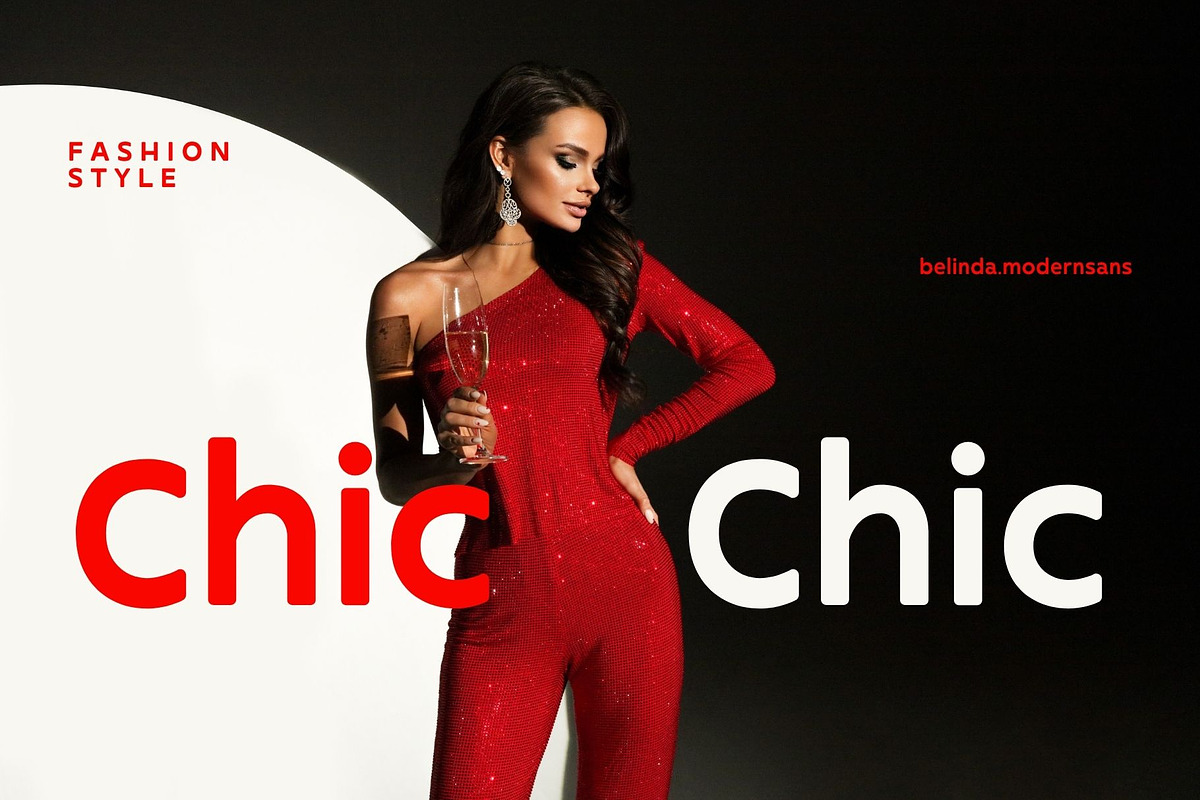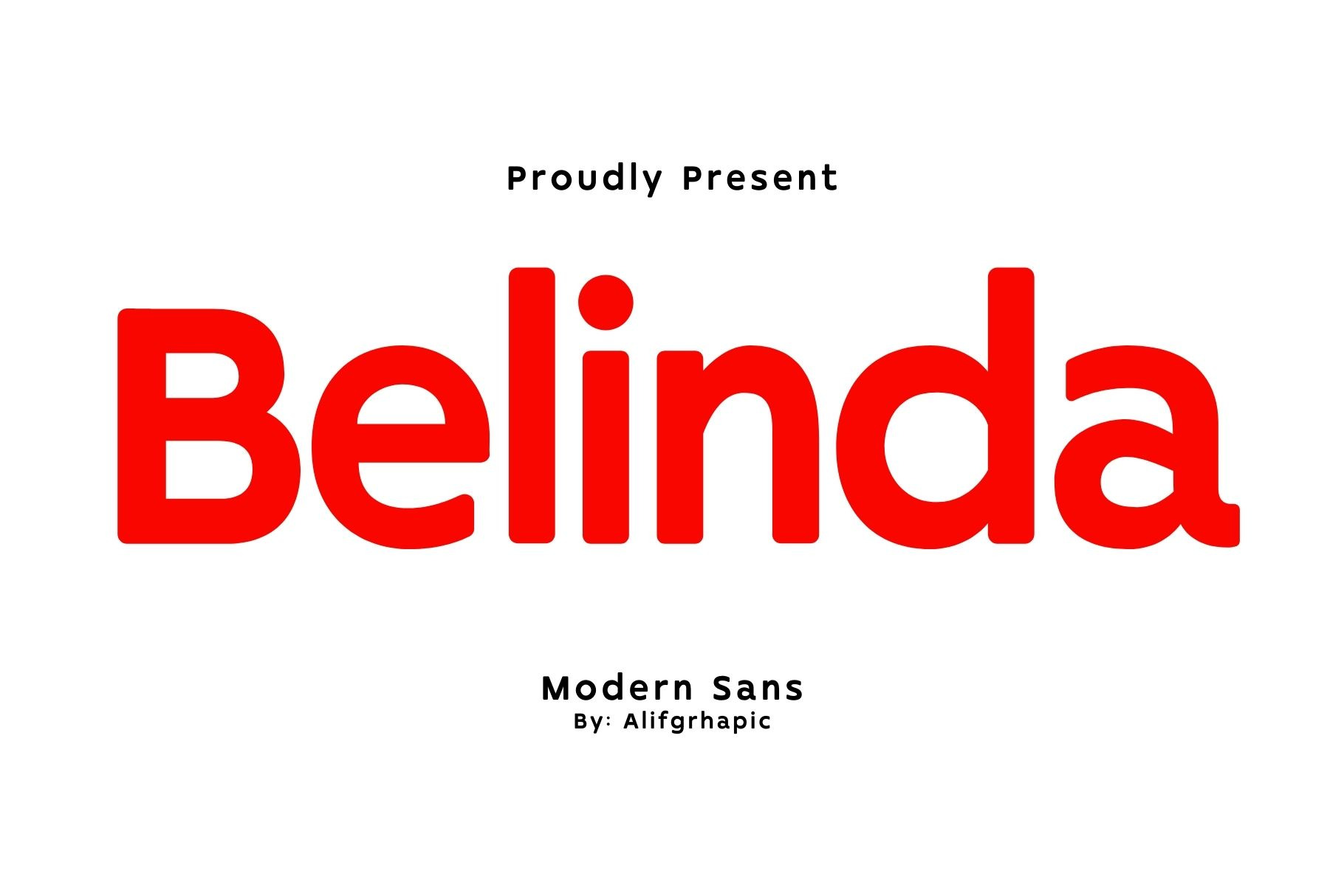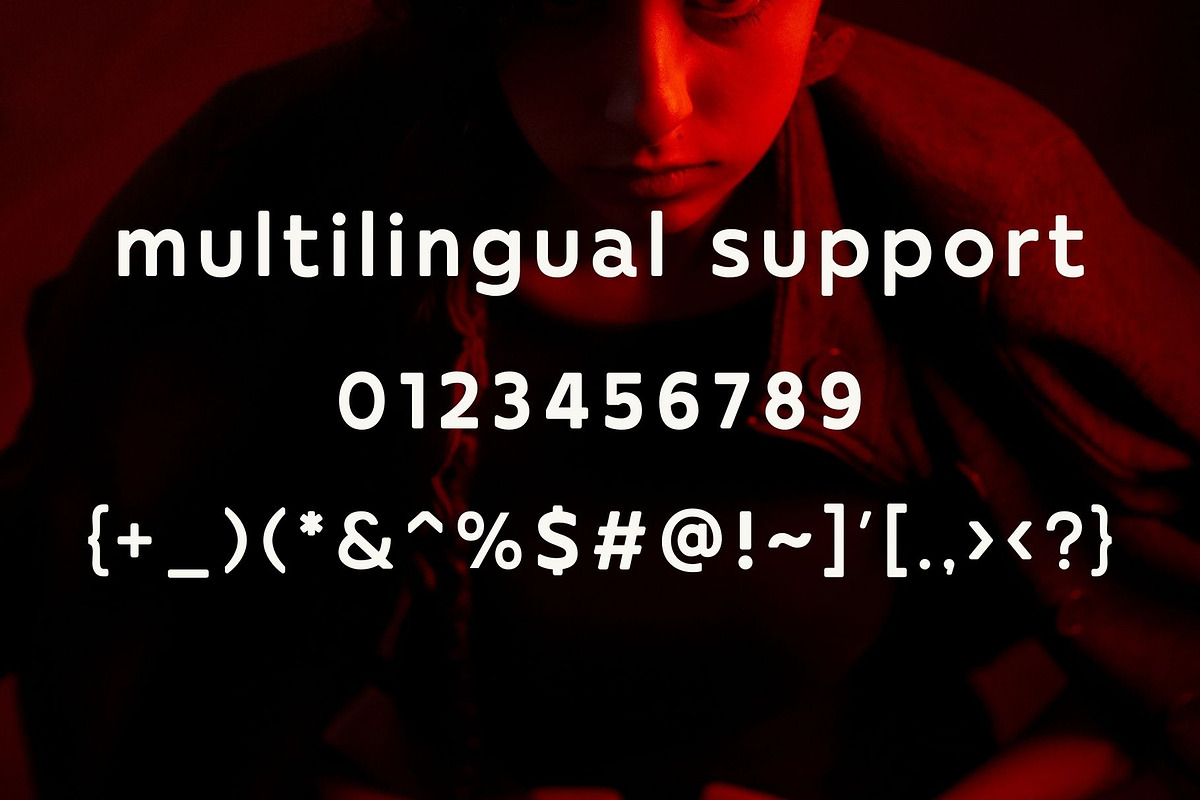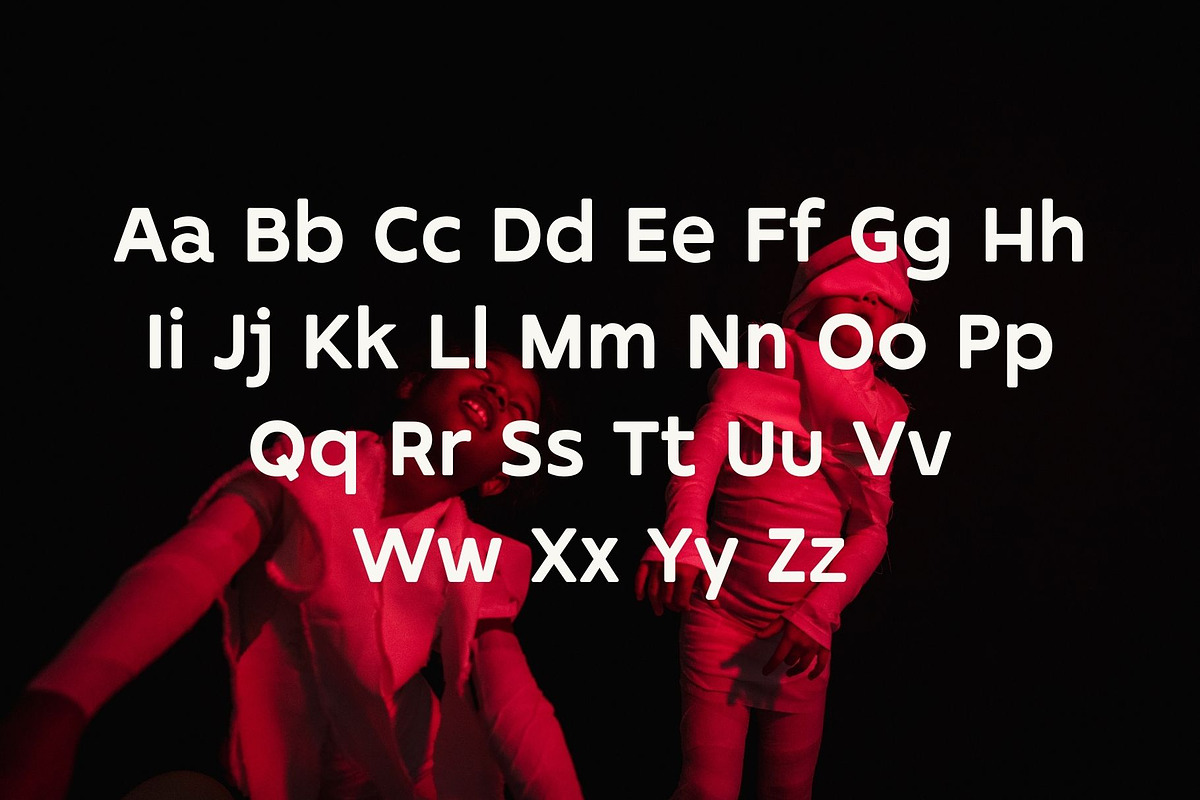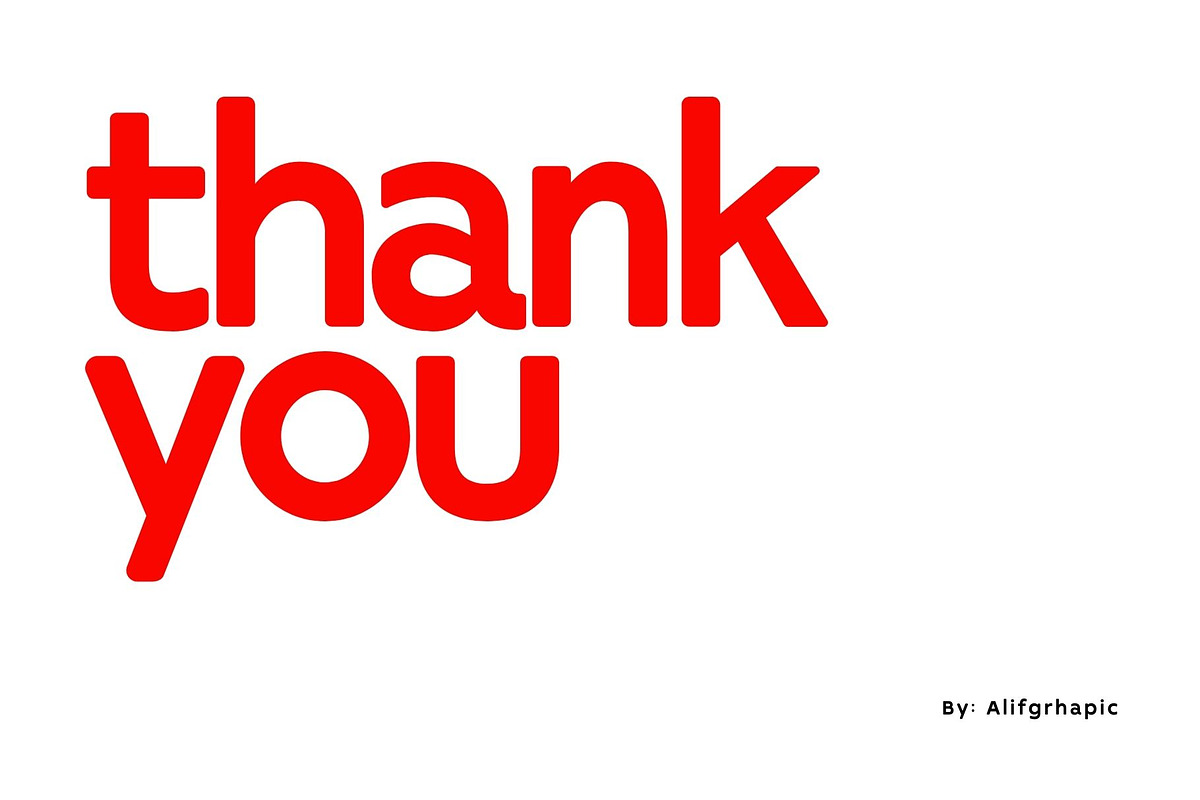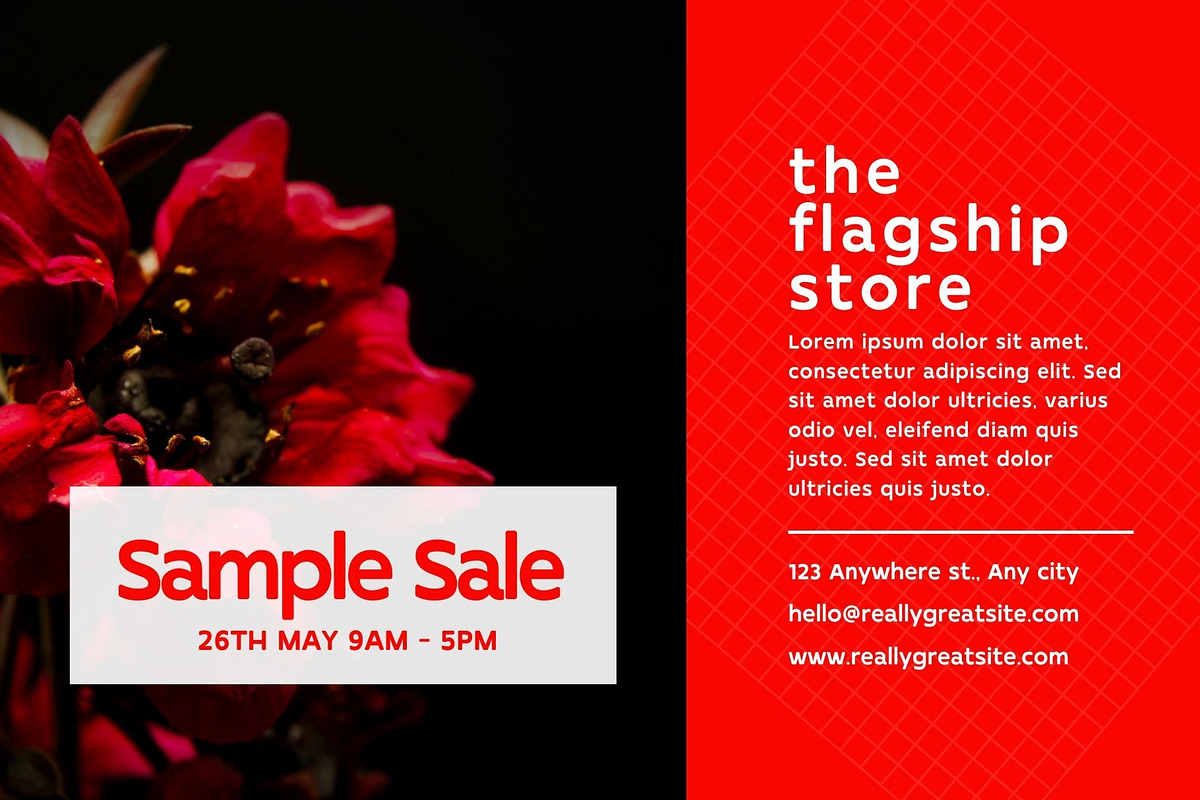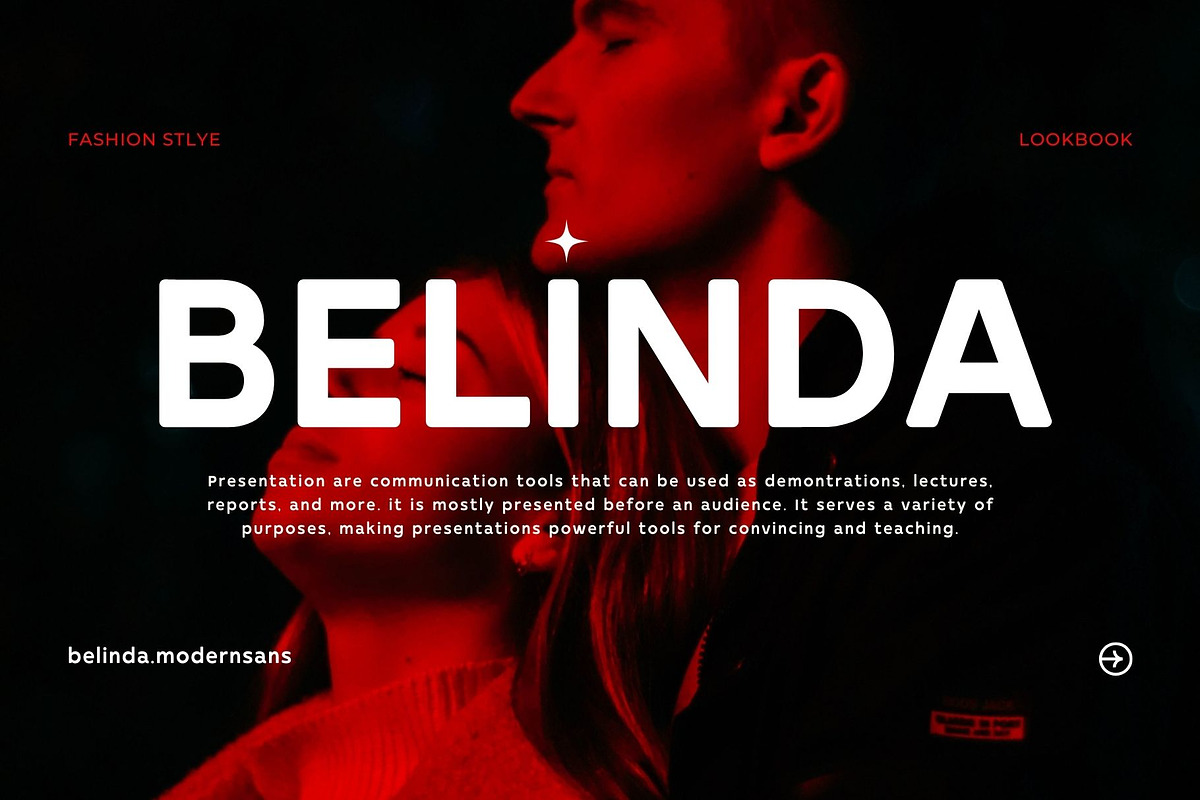
Belinda - Modern Sans Typeface
Introducing 'Belinda' Font:
Meet "Belinda" – a contemporary sans-serif font seamlessly blending sleek simplicity with timeless elegance. Featuring clean lines and a modern feel, Belinda is your go-to choice for infusing a sense of sophisticated modernity into your designs. Whether you're tackling branding, editorial projects, or digital applications, Belinda's versatility and clarity make it the perfect companion. Elevate your typography with the minimalist charm of Belinda, ensuring a fresh and polished look in any context.
Ideal for:
- Modern Designs
- Beauty and Fashion
- Elegant Creations
- Versatile Applications
- Personal Branding
- Ready for Creative Expression
- Immaculately Crafted Letters